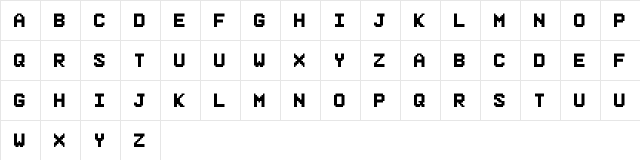
Superstar (Original) Regular
| Foundry | memesbruh03 |
| Designer | memesbruh03 |
Design Context for Superstar (Original) Typeface
Superstar (Original) takes a measured approach to typography — its balanced proportions and neutral character make it a reliable workhorse for both digital and print work.